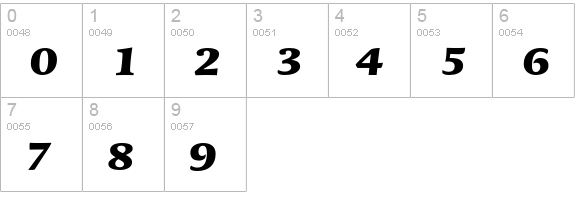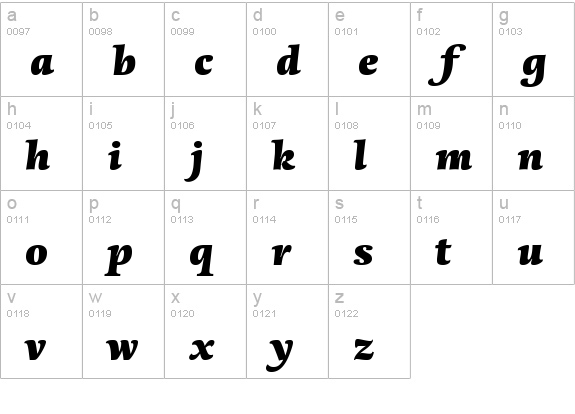
The DTLDorianT-HeavyItalic font exudes a sense of bold elegance with its striking heavy italic design. Perfect for adding a touch of sophistication to any project, this font is ideal for creating eye-catching headlines, branding materials, and more. Its strong lines and distinctive slant make it a versatile choice for both digital and print designs. Best of all, the DTLDorianT-HeavyItalic font is available for free download at FontsMarket.com. You can easily elevate your designs with this premium font without any cost. Don't miss out on the opportunity to enhance your projects with the timeless appeal of DTLDorianT-HeavyItalic font. Download it today and see the difference it can make in your creative endeavors.